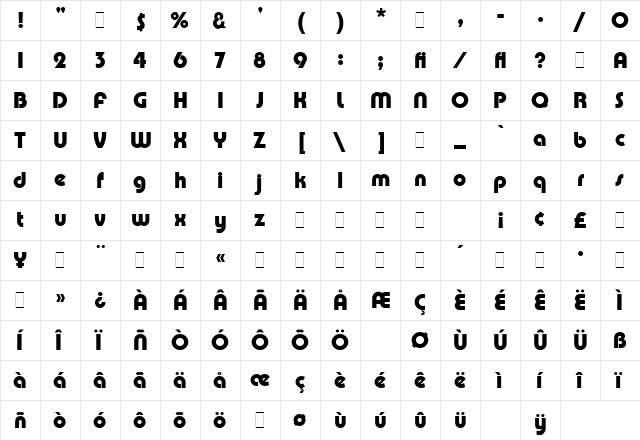
Pump Demi Bold LET Plain
Pump Demi Bold LET is a composed and adaptable typeface that performs quietly and consistently across a wide range of design contexts. Its bold stroke weight gives it real presence on the page.